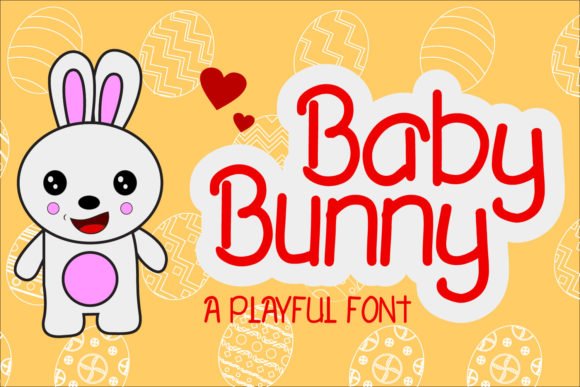
Discover the Adorable Charm of Baby Bunny Font
Who hasn’t experienced that magical moment when a design sparks an idea and suddenly, your creativity runs wild? For designers, those eureka moments are what make all the hard work worth it. I still remember the day I stumbled upon the Baby Bunny Font – its playful and quirky charm instantly captured my heart, and I knew I had to share it with the world.
As a friendly and approachable handwritten font, Baby Bunny Font is the perfect addition to any logo, branding, poster, or crafty DIY project. Its value lies in its versatility, making it a go-to choice for designers who crave a unique and adorable touch in their designs.
Whether you’re a seasoned pro or a budding designer, Baby Bunny Font is sure to bring a smile to your face and inspire your next creative project.
Baby Bunny Font Key Features
- Unique Characteristics: The Baby Bunny Font features adorable, hand-drawn illustrations of bunnies and other whimsical elements, making it perfect for children’s books, nursery decor, and other kid-friendly designs.
- Character Count: The font contains over 250 unique characters, including uppercase and lowercase letters, numbers, punctuation marks, and special symbols.
Baby Bunny Font Review
I recently had the chance to work with the Baby Bunny Font, and I must say it’s a unique addition to any design project. Here are my thoughts on its strengths and weaknesses.
The playful and whimsical nature of the font is perfect for children’s books, nursery decor, and other projects that require a touch of innocence and charm.
The font is highly legible, making it suitable for body text and headings in a variety of contexts.
The design is consistent across different font sizes and styles, which is great for maintaining a cohesive visual identity.
The font may not be suitable for formal or professional projects due to its lighthearted and childish nature.
The font lacks a bold weight, which may limit its use in headings and titles.
The font may not be as versatile as other fonts, as its design is quite specific to its intended use.
Overall, I think the Baby Bunny Font is a great choice for designers looking to add a playful touch to their projects. While it has some limitations, its strengths make it a valuable addition to any design toolkit.
Tip: Use Baby Bunny Font to create a whimsical and playful design for children’s products, nursery decor, or baby-themed party invitations.
Tip: Use Baby Bunny Font to add a touch of cuteness to your logo designs or branding materials.
Tip: Use Baby Bunny Font to create engaging and interactive presentations or documents for children’s events or educational purposes.
Some common use cases for Baby Bunny Font include:
- Children’s product packaging and branding
- Nursery decor and wall art
- Baby-themed party invitations and decorations
- Logo designs and branding materials for children’s businesses
Alternatives to Baby Bunny Font
Great Vibes is a modern, elegant script font that is perfect for creating a whimsical and playful atmosphere. It’s ideal for use in invitations, social media graphics, and branding materials where a touch of sophistication is required.
Compared to Baby Bunny Font, Great Vibes has a more refined and polished look, making it suitable for a wider range of design applications.
Alex Brush is a beautiful, handwritten font that exudes a sense of warmth and personality. It’s perfect for use in creative projects, such as book covers, magazine articles, and social media posts where a personal touch is desired.